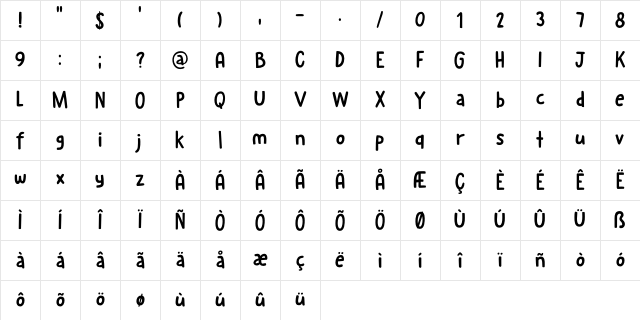
Kabouter DEMO is a composed and adaptable typeface that performs quietly and consistently across a wide range of design contexts.
Pro Tip: Use Kabouter DEMO in both headline and body roles to test its range before committing to a single application.